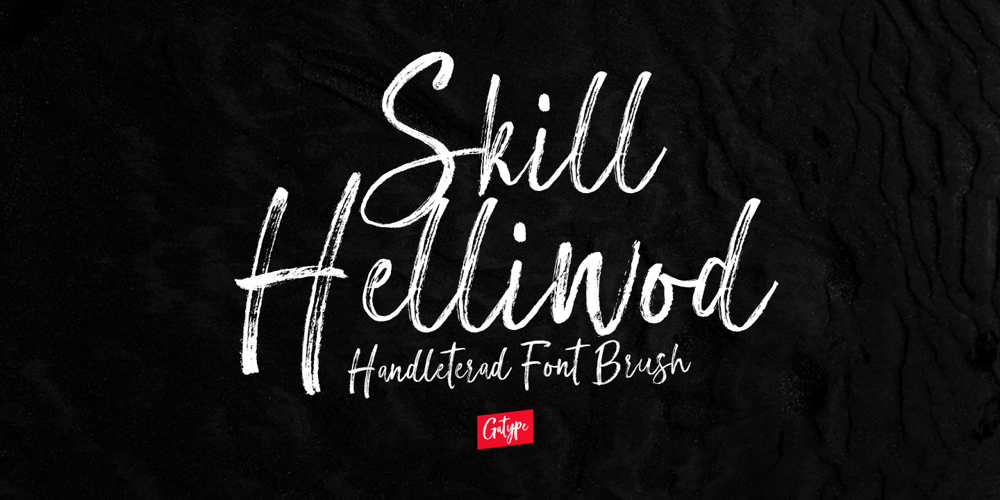
Skill Helliwod Font Family was designed by khaidir and published by Gatype. Skill Helliwod contains 1 styles and family package options. Skill Helliwod with extreme Brush cuts, sharp angles and interactive straps. Affected characters are spread across three capital-only subfamilies, with distinct styles, and distinct personalities. The bold separation of characters and the considered standard of ligature create a type that is solid, modern and attractive.Skill Helliwod . OTSkill Helliwod . TTSkill Helliwod is a modern style brush font, each letter has been carefully crafted to make your text look unique.Don’t hesitate to send me a message if you have any questions!